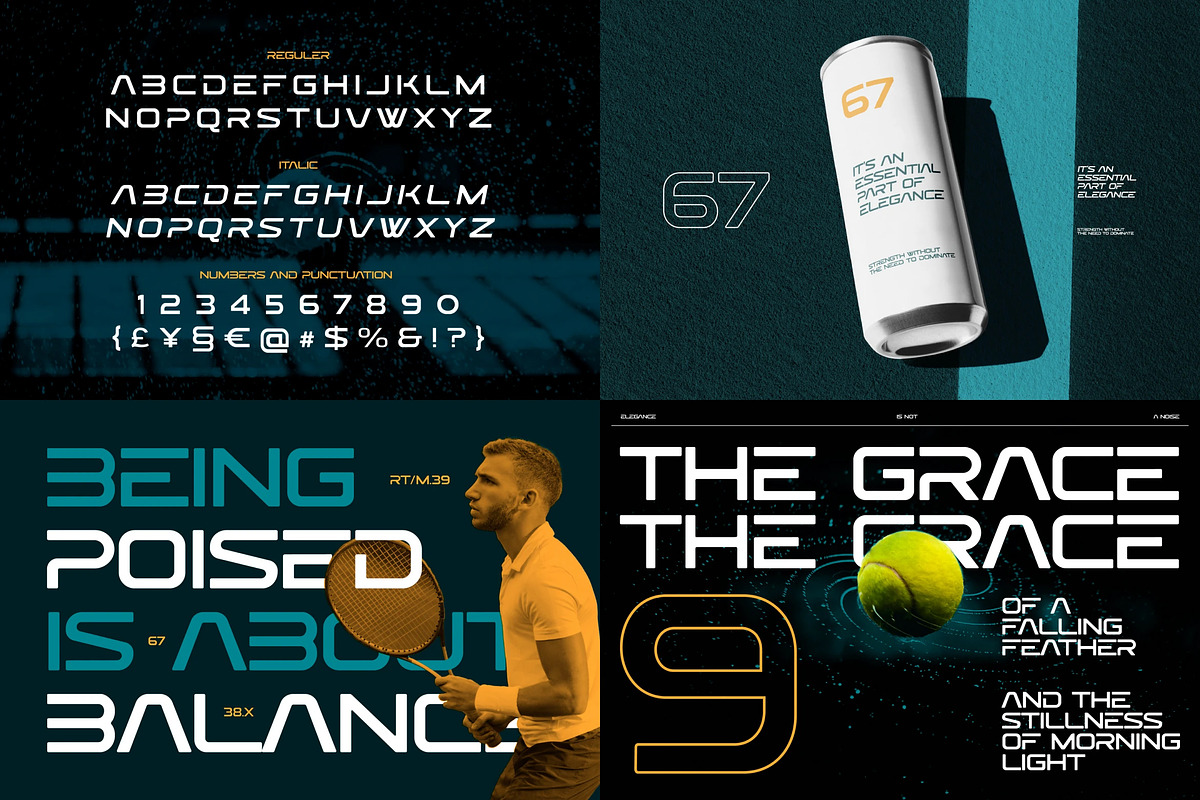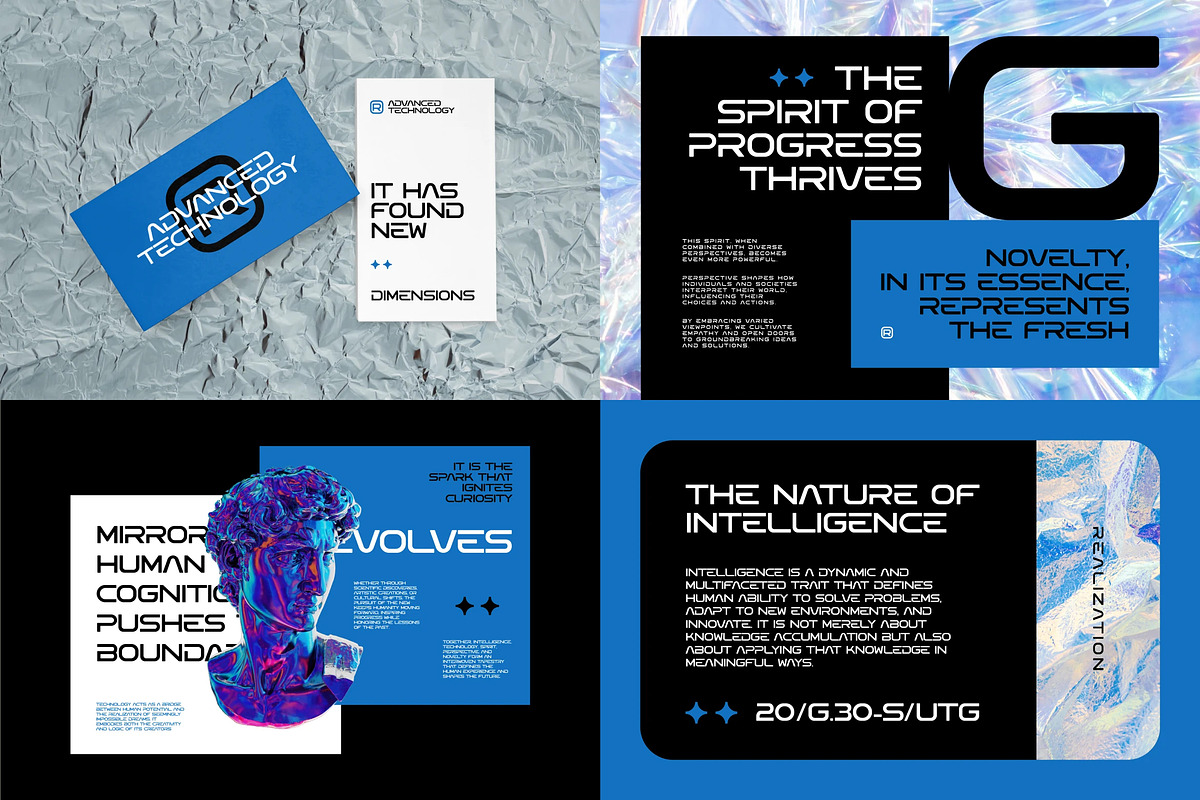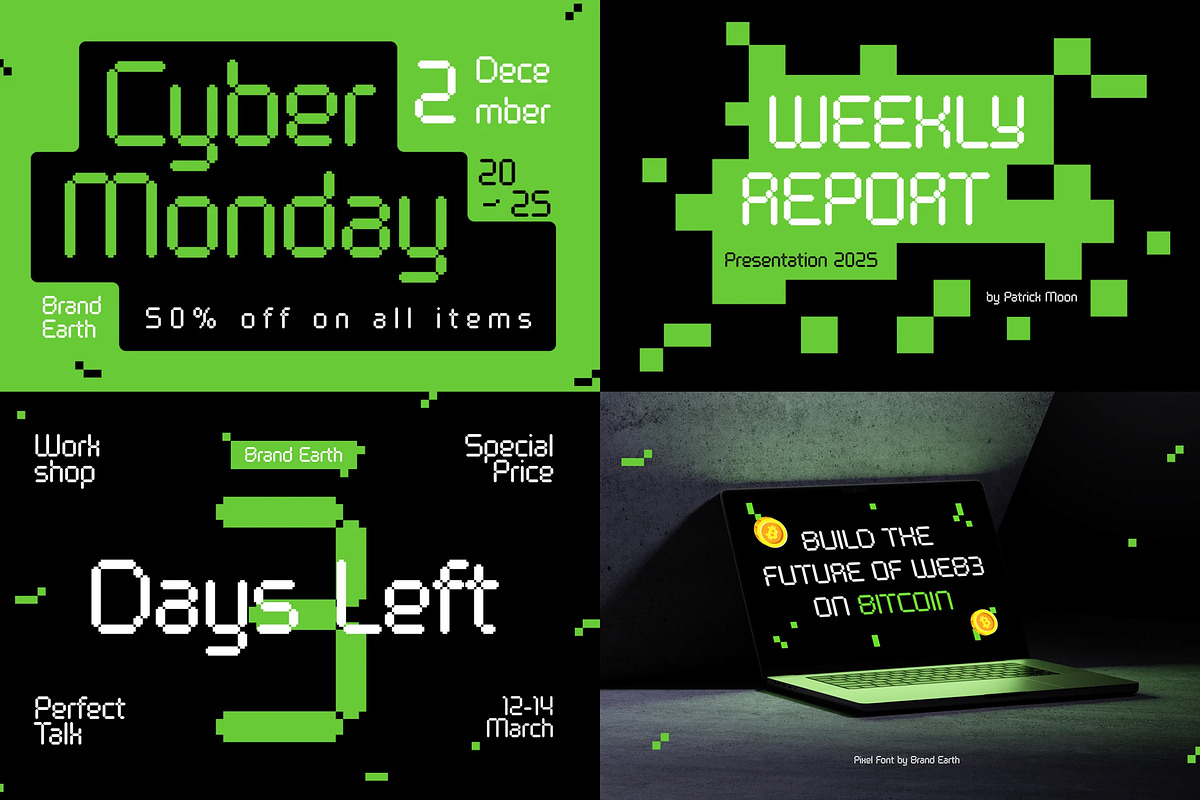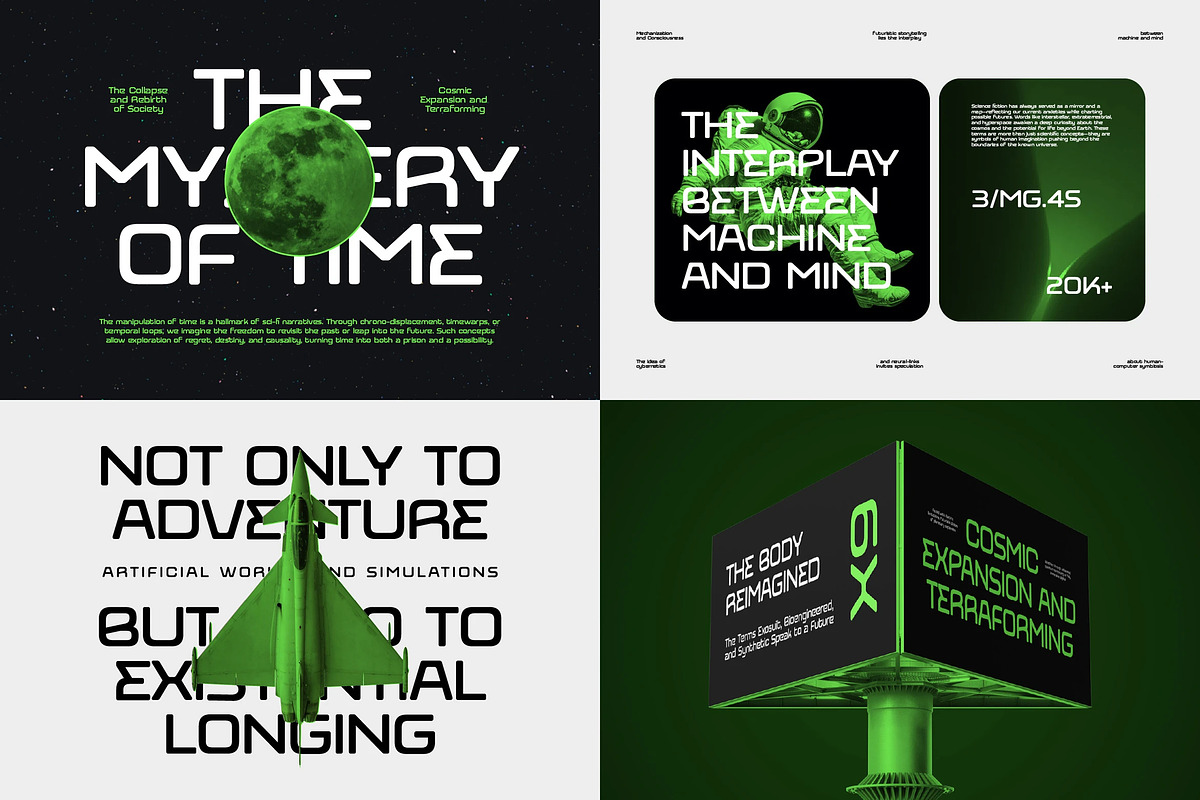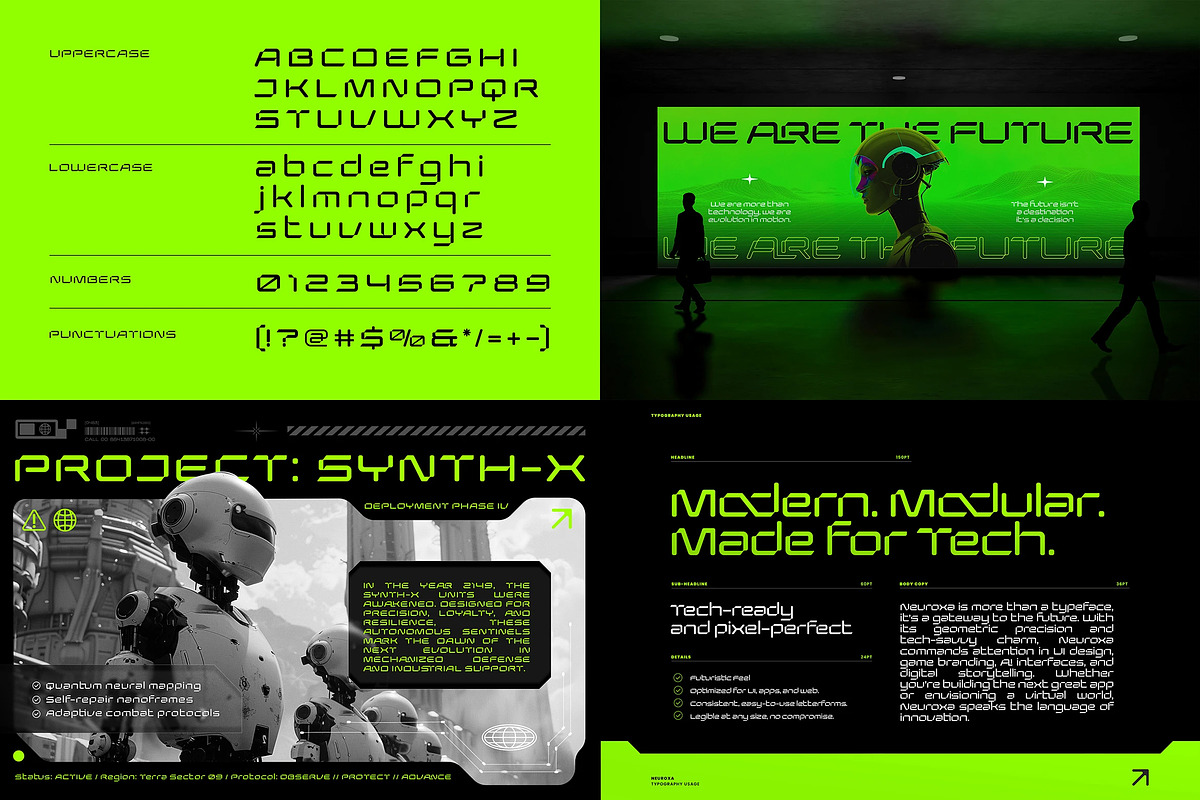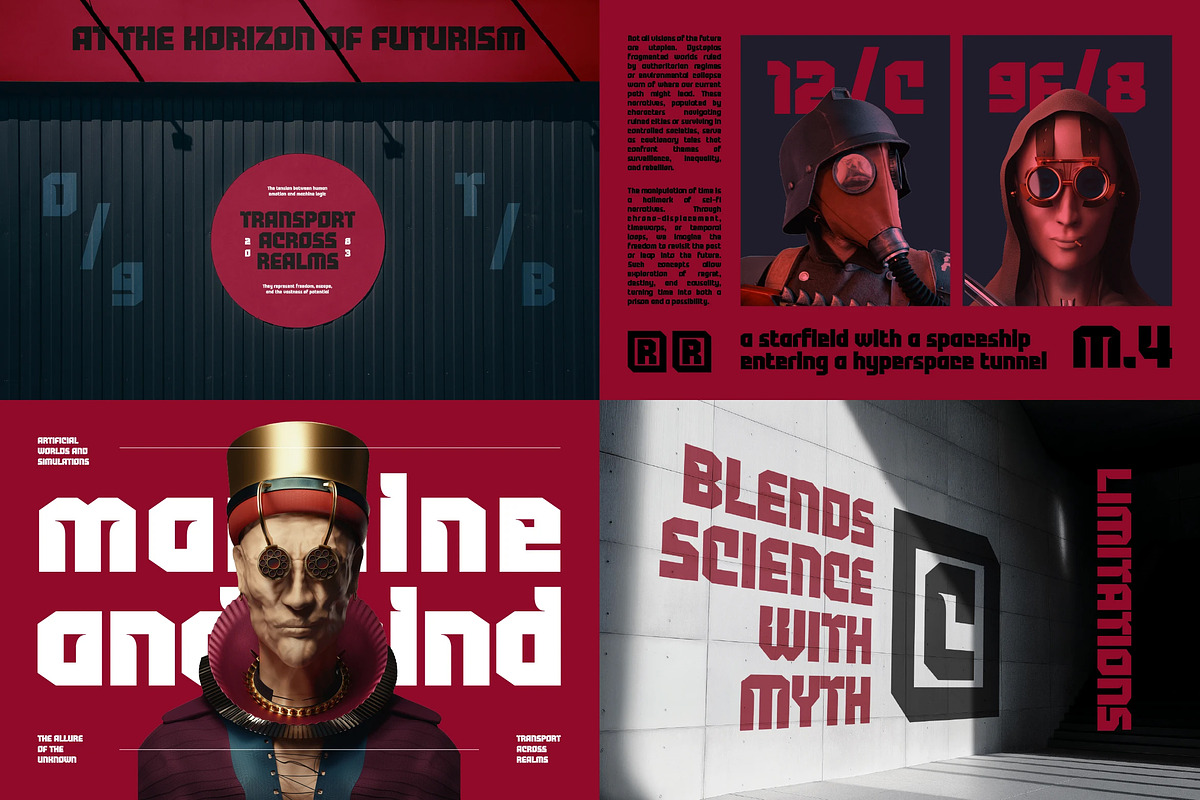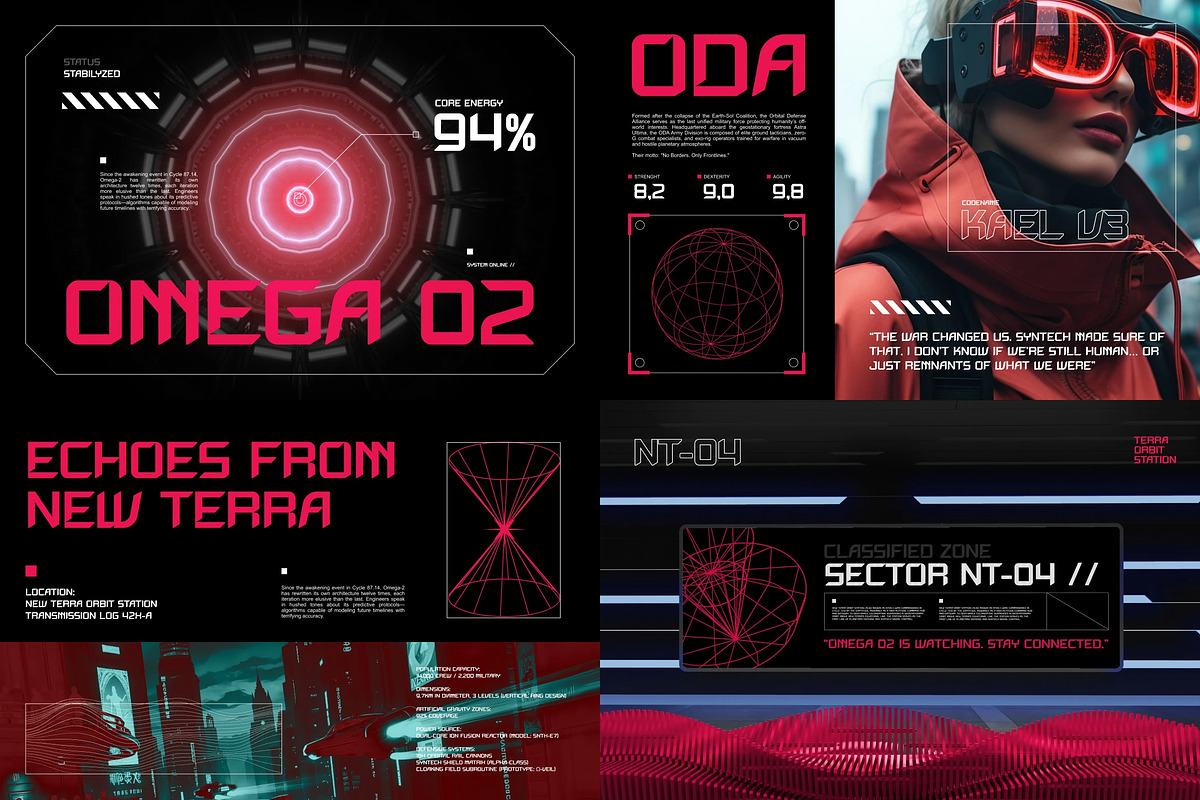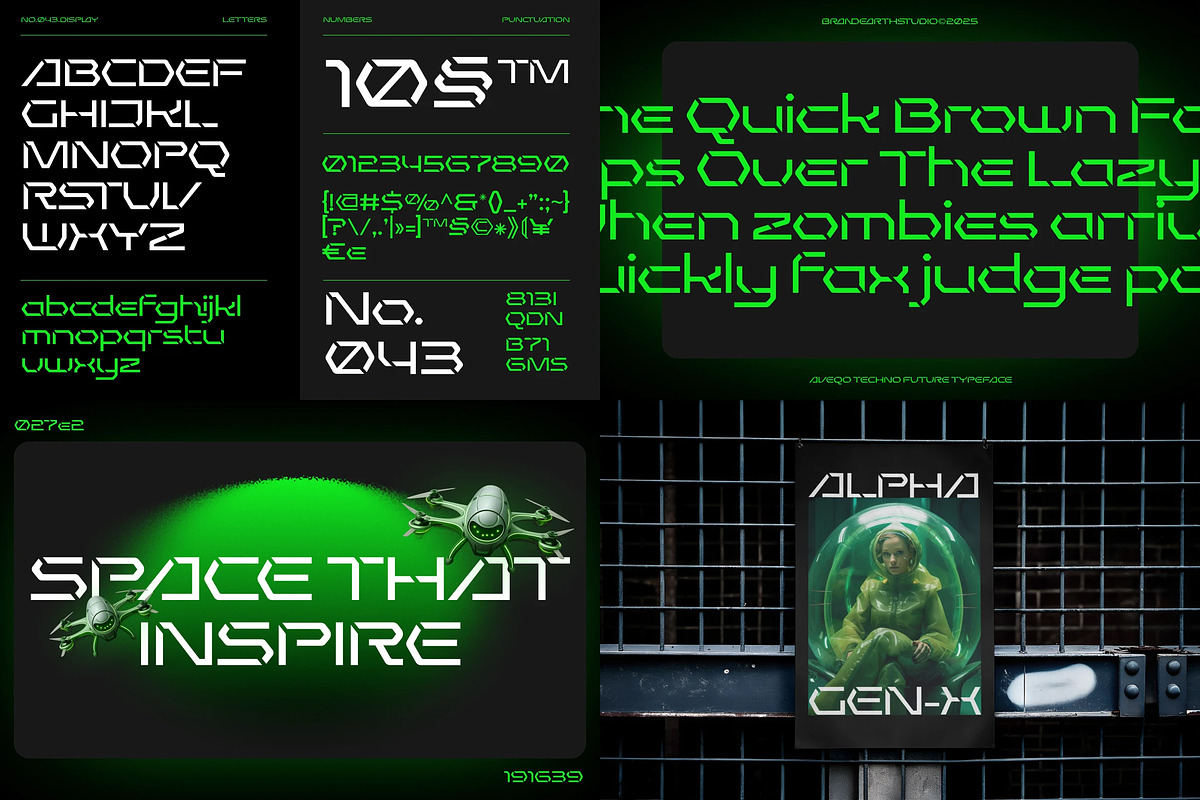
Techno – 8 Font Bundle
Techno is a curated collection of eight bold, futuristic display typefaces, each bringing its own distinct energy while sharing a common thread of sharp, high-tech precision. From the sci-fi power of Syntech to the sleek geometry of Korvia, the digital-forward edge of Braze, the minimalist rhythm of Neuroxa, the retro bitmap charm of Pixo, the sporty dynamism of Forgex, the cyberpunk intensity of AVEQO, and the commanding force of Octane—this bundle captures a versatile range of moods spanning cyberpunk, gaming, corporate-tech, and retro-digital. Together, these eight fonts form a complete toolkit for designers who want range without sacrificing impact.
The letterforms across this collection range from sharp angular cuts and rigid geometric structures to smooth rounded curves and chunky pixel grids. Each typeface carries its own rhythm—some minimal and precise, others bold and commanding—giving you the flexibility to match the perfect font to your project's tone. Ligatures, alternates, and multilingual character sets are woven throughout, ensuring every word feels engineered for the digital age.
With its blend of raw technological energy and refined display craftsmanship, Techno bridges the gap between underground cyberpunk aesthetics and polished corporate-tech branding. It provides the versatility to move seamlessly between gaming interfaces, sci-fi visuals, and high-impact commercial projects—making it ideal for esports branding, tech startup identities, streaming overlays, and futuristic film titles.
Fonts Included in This Bundle
Syntech – Bold, angular sci-fi typeface with high-impact geometric precision.
Korvia – Sleek futuristic display blending sharp geometry with smooth curves.
Braze – Modern techno font with tight modular rhythm and digital edge.
Neuroxa – Minimalistic sci-fi font with sharp angles and UI/UX versatility.
Pixo – Retro pixel typeface with chunky, grid-based bitmap character.
Forgex – Dynamic display font with smooth curves, Regular & Italic styles.
AVEQO – Cutting-edge cyber-aesthetic font built for high-impact displays.
Octane – Bold condensed sans serif with heavy, commanding geometric presence.